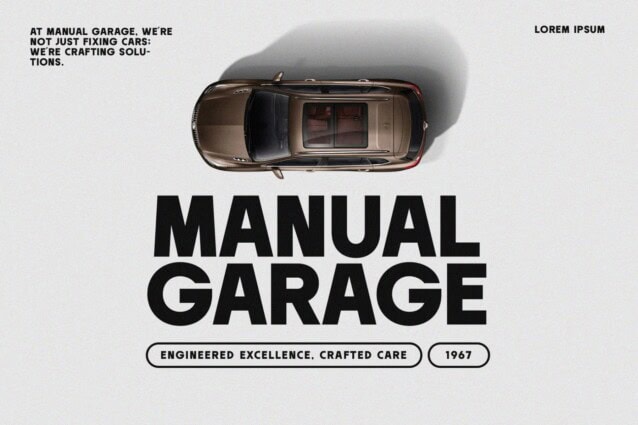
Makizlo Font
Makizlo Font is a modern sans serif typeface with a bold weight, designed to convey a sense of friendliness and warmth. The letters have a clean, rounded structure with balanced proportions, making it versatile for both headlines and body text. The strokes are even and uniform, with minimal variation in line thickness, and the spacing between characters is optimized for readability.